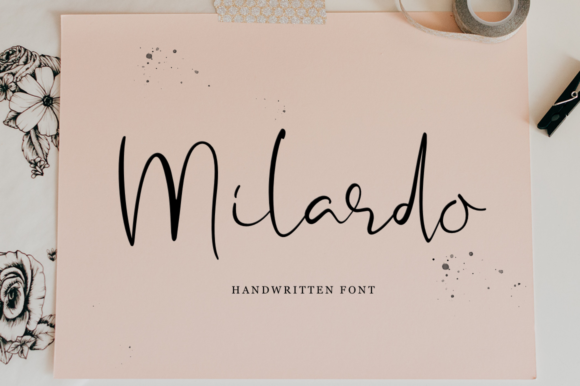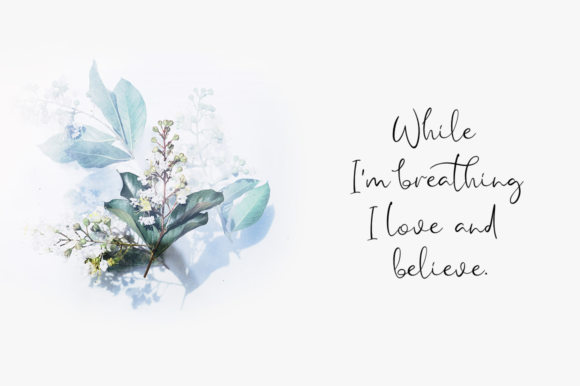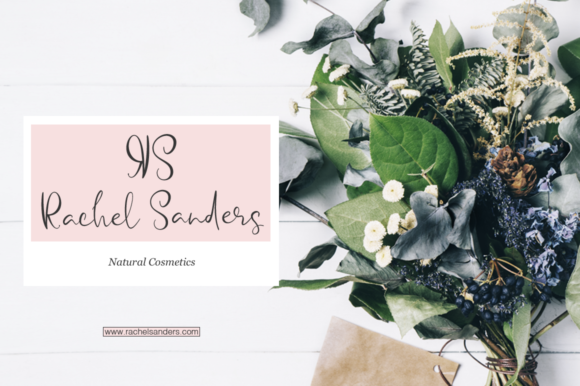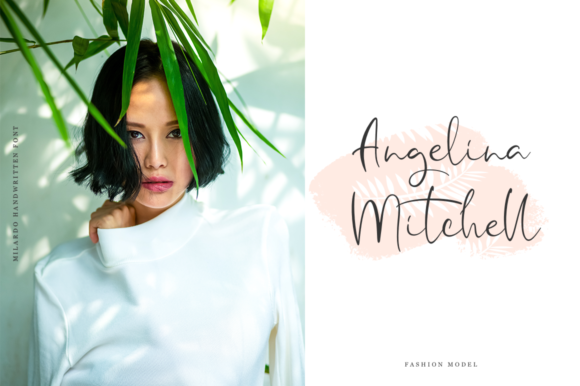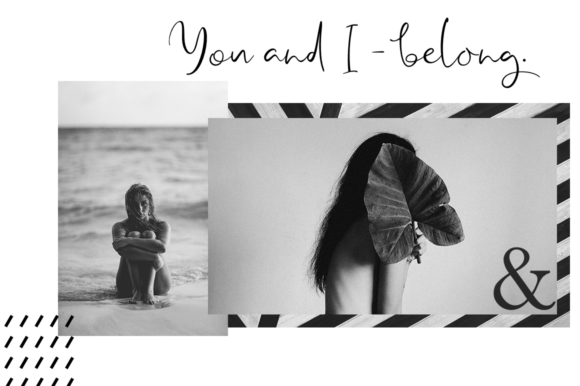
Milardo Font
About Milardo Font
The Milardo is an elegant handwritten font. It’s ideal for branding and decorating your designs, invitations, logos, small businesses, book covers, and much more!